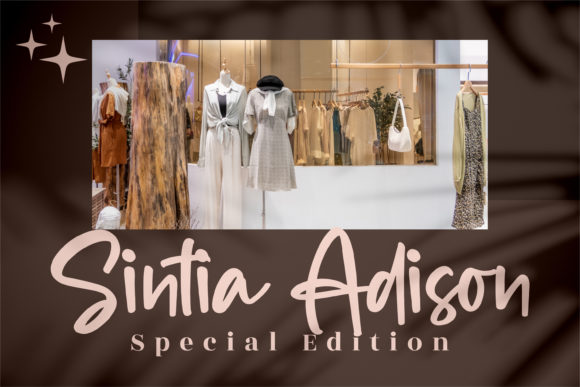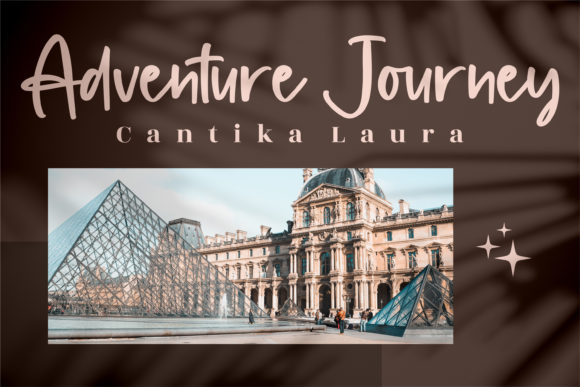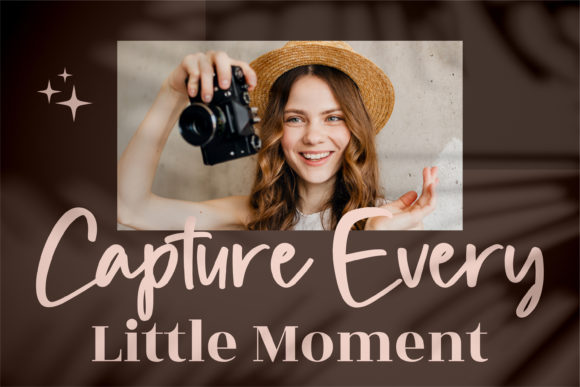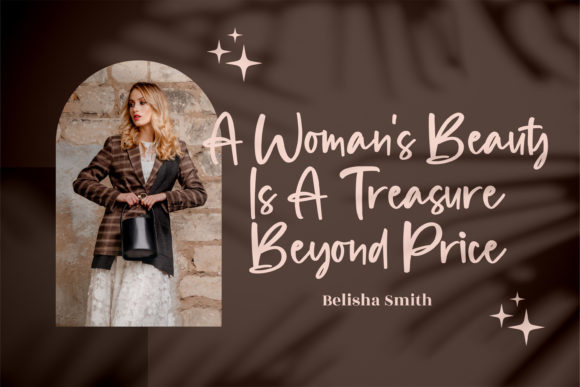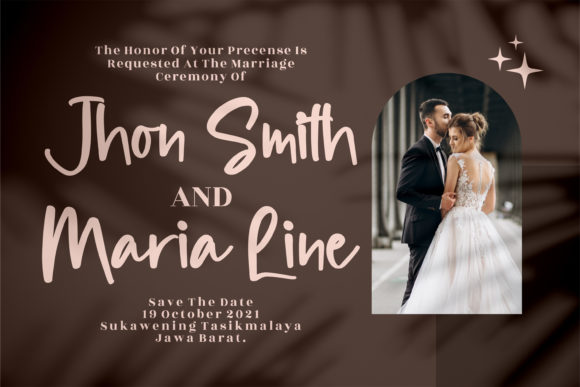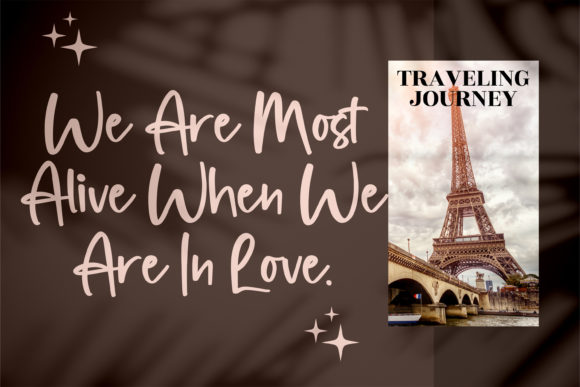
Introducing Alisha Gishela Font: Elevate Your Designs with Elegance
In the world of typography, a well-crafted font can make all the difference in transforming a design from ordinary to extraordinary. For designers and crafters seeking to add a touch of sophistication and luxury to their projects, Alisha Gishela Font is an excellent choice. This elegant handwritten font is designed to bring a stylish and refined aesthetic to a wide range of applications, from logos and branding to packaging, book covers, and more.
The Essence of Alisha Gishela Font
Alisha Gishela Font is characterized by its fluid, cursive strokes and classic letterforms, which exude a sense of elegance and poise. Each letter is meticulously designed to ensure a harmonious flow, making it perfect for creating visually stunning text. Whether you’re working on a luxury brand’s logo, a high-end product’s packaging, or a special event’s invitation, Alisha Gishela Font is sure to make a lasting impression.
One of the standout features of Alisha Gishela Font is its versatility. It’s not limited to just one or two specific uses; instead, it can be applied to a myriad of design projects, including:
- Logos and Branding: Create a memorable and sophisticated brand identity with Alisha Gishela Font.
- Homeware Designs: Add a touch of elegance to your home decor designs, from wall art to stationery.
- Product Packaging: Elevate your product’s packaging with a font that screams luxury and quality.
- Book Covers: Make your book cover stand out with a stylish and eye-catching title.
- Cards and Invitations: Whether it’s a wedding invitation or a holiday card, Alisha Gishela Font adds a classy touch.
- Photography: Use it for watermarks, captions, or any text overlay on your photos for a sophisticated look.
- Special Events: From formal galas to intimate gatherings, this font is perfect for event branding and materials.
Why Choose Alisha Gishela Font?
There are several reasons why designers and crafters are gravitating towards Alisha Gishela Font:
- Elegance: It brings an unmatched level of elegance to any project.
- Readability: Despite its elegant nature, it’s highly readable, even in smaller sizes.
- Uniqueness: Stand out from the crowd with a font that is both distinctive and stylish.
- Easy to Use: Alisha Gishela Font is easy to integrate into your design workflow, compatible with various design software.
Tips for Using Alisha Gishela Font
To get the most out of Alisha Gishela Font, consider the following tips:
- Pair it Wisely: Combine Alisha Gishela Font with complementary fonts to create visual interest.
- Adjust Letter Spacing: For certain applications, adjusting the letter spacing can enhance the overall look.
- Experiment with Colors: While it looks stunning in black, don’t be afraid to experiment with different colors to match your brand or project’s aesthetic.
Alisha Gishela Font is more than just a typeface; it’s a design element that can elevate your projects to new heights of elegance and sophistication. Its versatility, combined with its stylish and refined aesthetic, makes it an indispensable tool for designers and crafters looking to make a statement. Whether you’re working on a luxury brand, a special event, or any project that demands a touch of class, Alisha Gishela Font is sure to deliver. Embrace the elegance and let your designs speak volumes with Alisha Gishela Font.